dot-font: Seven Principles of Typographic Contrast
Carl Dair, an expert typographer, reveals the secrets of typographic contrast in his series, A Typographic Quest.
the best handbooks available for learning how to do exactly what the title says: design with type. At around the same time he was revising his book, Carl Dair was producing a series of six pamphlets for West Virginia Pulp & Paper (Westvaco), which he called A Typographic Quest. Each booklet was, naturally, printed on Westvaco paper stock. Like the lavish paper-company samples produced today, this series was meant to raise the profile of the manufacturer and encourage designers to think of Westvaco when specifying paper for their printing jobs. But these were quite modest productions: little saddlestitched booklets of about 30 pages, measuring 5-1/4 inches by 9, usually printed in two colors (the first one uses three colors throughout; the later ones are two-color, although the second color may change from sheet to sheet, with all three colors used together on the covers). The first Typographic Quest was published in 1964; the sixth (and, as far as I know, final) came out in 1968, the year Carl Dair died. Since he was both writer and designer for the series, each of the booklets emerged as a wholly crafted object, dedicated to explaining one aspect or another of using type.
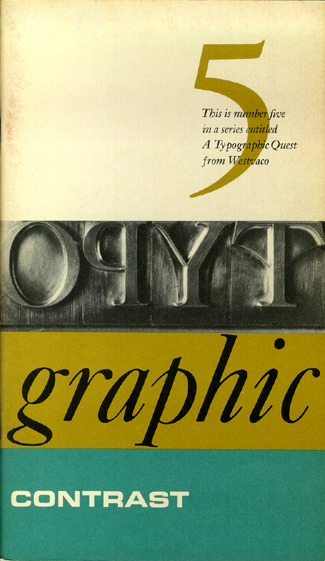
Harmony & Contrast
The heart of Carl Dair’s teaching—the thing that I keep pointing people to, and the most valuable thing I myself learned from his work—is the subject of A Typographic Quest No. 5: Typographic Contrast. In a virtuoso performance, Dair shows exactly how designers use different kinds of visual contrast to make design work and meaning pop out—clearly, unambiguously, and with flair. To make his point, he compares typography to music.
Graphic form and musical form have many shared features: rhythm, emphasis, harmony and contrast. “Harmony and contrast,” says Dair, “are fundamental to both [music and typography], and the discovery of these basic principles and their application to the design of printed matter is the object of this volume of A Typographic Quest.”
Seven Kinds of Contrast
Dair first explains the “elements of harmony” (a consistent relationship between the black strokes of the letters on a page and the space around them; as well as any rules, frames, or decorations being similar in style to the type), then goes on to show seven different kinds of contrast. He emphasizes that in any kind of differentiation, it’s important to make the contrast obvious—not just a slight change, or almost imperceptible variation, but a really big, obvious difference between the contrasting elements.
The first and most basic contrast is size. “A simple but dramatic contrast of size,” says Dair, “provides a point to which the reader’s attention is drawn. Set in the same style of type, it maintains the overall harmony of the composition by maintaining the exact relationship of the letter to the background. It is only a physical enlargement of the basic pattern created by the form and the weight of the type being used for the text.” The most common use of size is in making the title or heading noticeably bigger than the text—but that’s only a starting-point.
The second most obvious contrast is of weight. Bold type stands out in the middle of lighter type of the same style. As Dair points out, “Not only types of varying weight, but other typographic material such as rules, spots, squares, etc. can be called into service to provide a heavy area for a powerful point of visual attraction or emphasis.”
The next two kinds of contrast are the contrast of form and the contrast of structure. It may not be entirely obvious to the reader where to draw a line between these two, since they both have to do with the shapes of the letters. By “form,” Dair means the distinction between the four standard variations of type: roman capitals, roman lower-cases, italic capitals, and italic lower-cases. He also includes condensed and expanded versions under “form,” and he even allows that “there are some script types which harmonize with standard types, such as the Bank Script and Bodoni on the opposite page, [which] can be used for dramatic change of form.” He warns, parenthetically, against using scripts and italics together, since they are both versions of handwritten letters. They’re more likely to conflict than to contrast.
By “structure,” Dair means the different letterforms of different kinds of typefaces—a monoline sans serif vs. a high-contrast modern, for instance, or a script vs. a blackletter. “The use of contrast of structure may be compared to an orator who changes his voice not to increase or decrease the volume, but to change the very quality of his voice to suit his words.”
Put all these things together and apply them to a block of text on a page, and you come to the contrast of texture: the way the lines of type look as a mass, which depends partly on the letterforms themselves and partly on how they’re arranged. “Like threads in cloth,” says Dair, “types form the fabric of our daily communication.”
Dair’s sixth contrast is color—and he warns that a second color is usually less emphatic than plain black on white (or white on black), so it’s important to give careful thought to which element needs to be emphasized and to pay attention to the tonal values of the colors used.
The last of Dair’s seven kinds of contrast is the contrast of direction: the opposition between vertical and horizontal and the angles in between. Turning one word on its side can have a dramatic effect on a layout. But Dair points out that text blocks also have vertical or horizontal aspects and mixing wide blocks of long lines with tall columns of short lines can also produce a contrast.